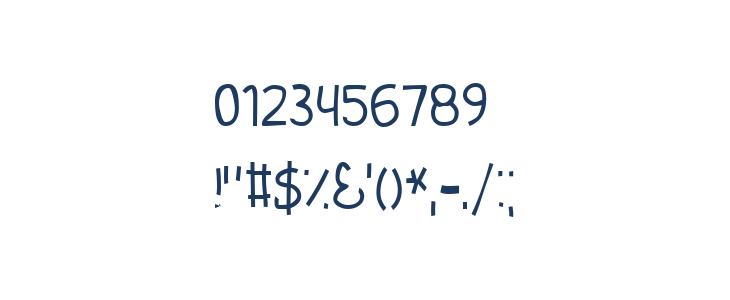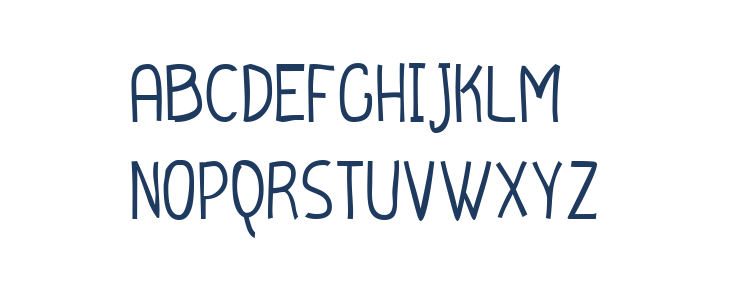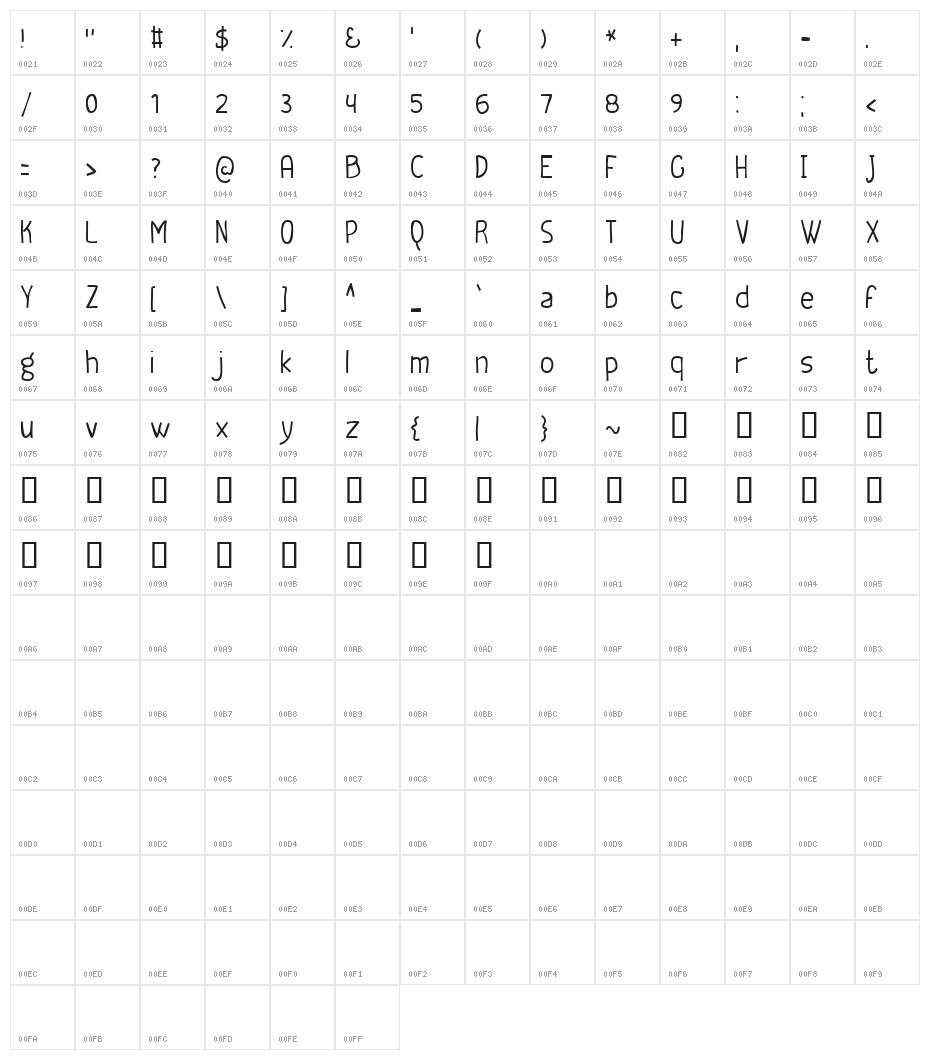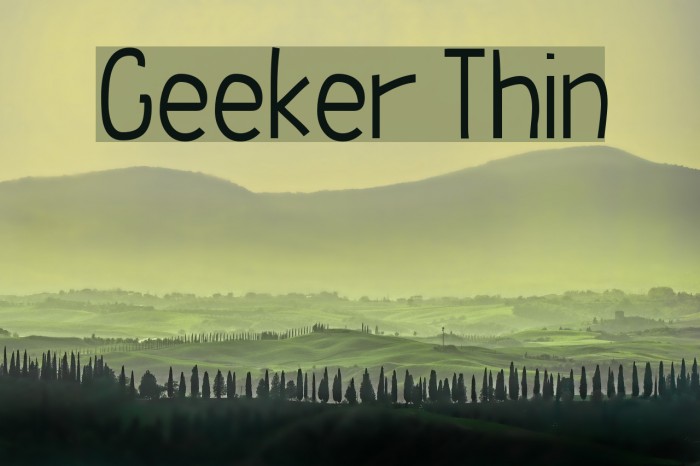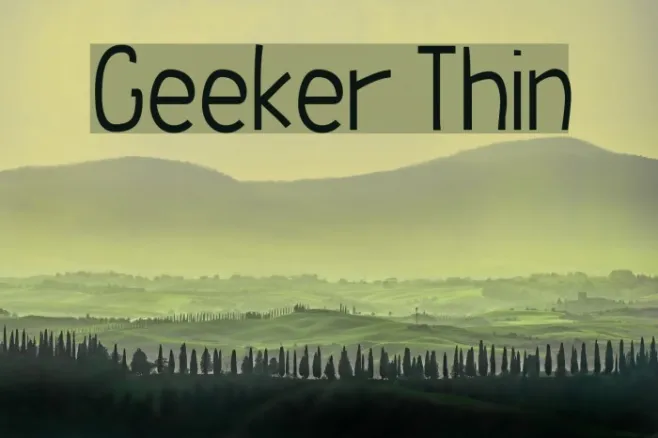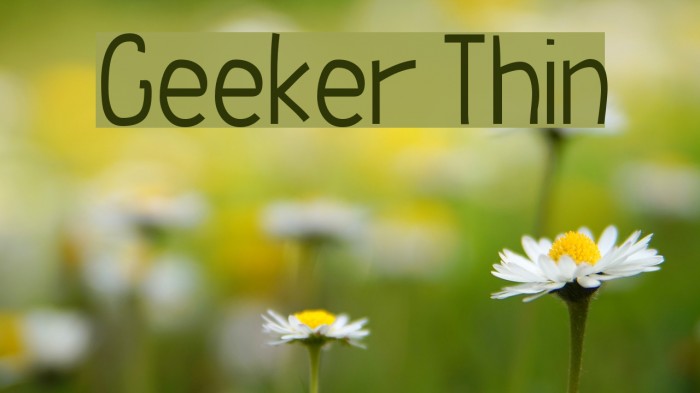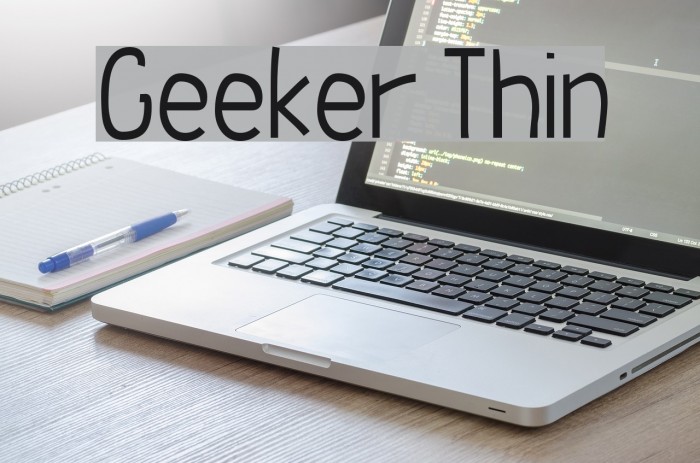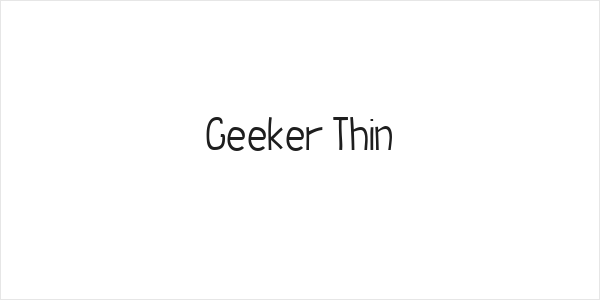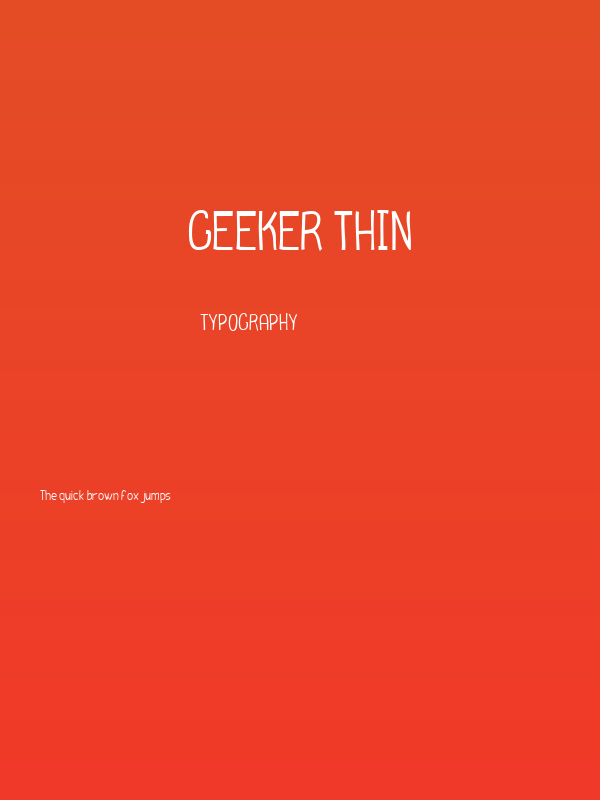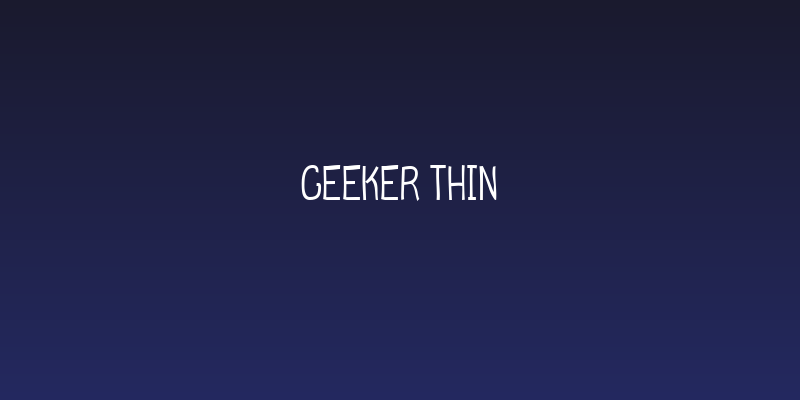
Geeker Thin Font
Geeker Thin Description
This font features a playful and quirky design with a hand-drawn aesthetic. The characters have a slightly uneven stroke, giving them a whimsical and informal appearance. The uppercase letters are tall and narrow, while the lowercase letters maintain a consistent height, adding to the font's unique charm. The numbers and special characters follow the same style, ensuring a cohesive look across all elements. The overall design is approachable and friendly, making it suitable for projects that require a casual and creative touch.
| Proposed Projects | Ideal for children's books, creative posters, casual branding, and playful social media graphics. |